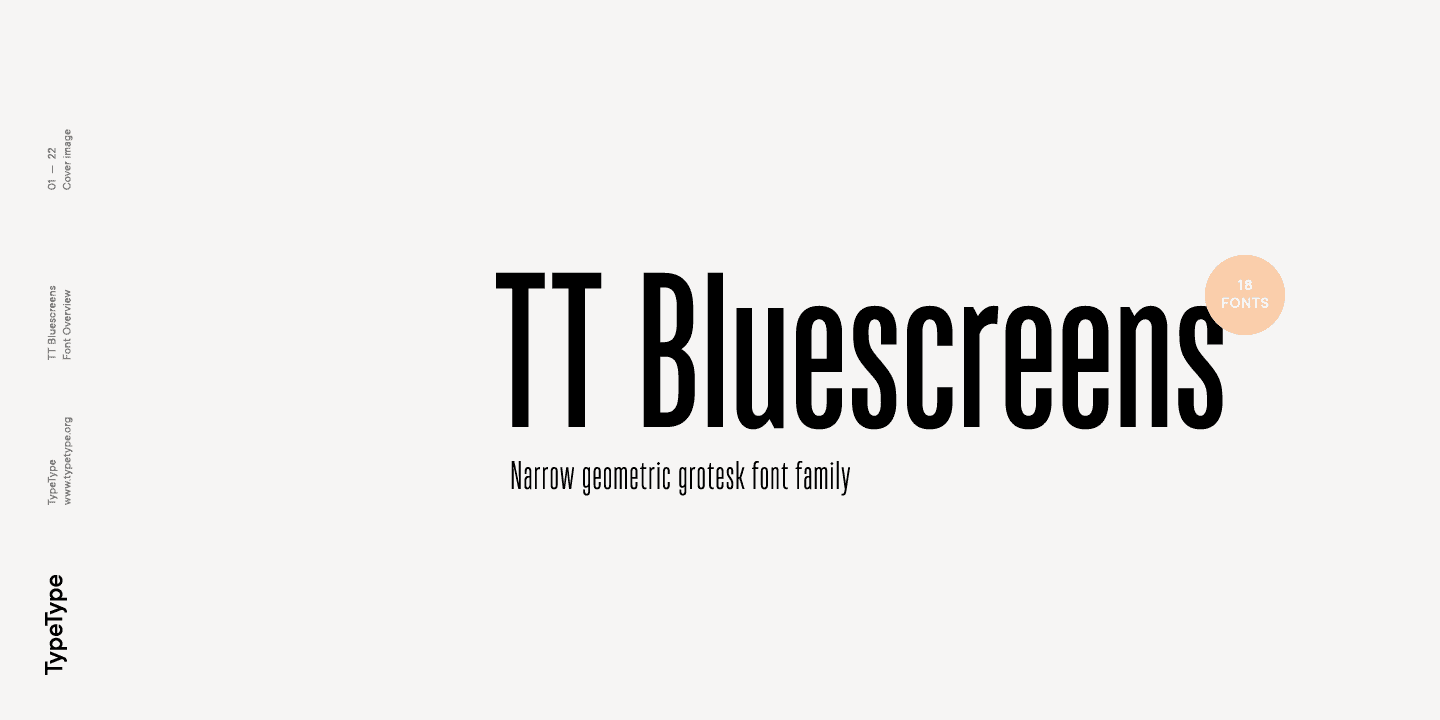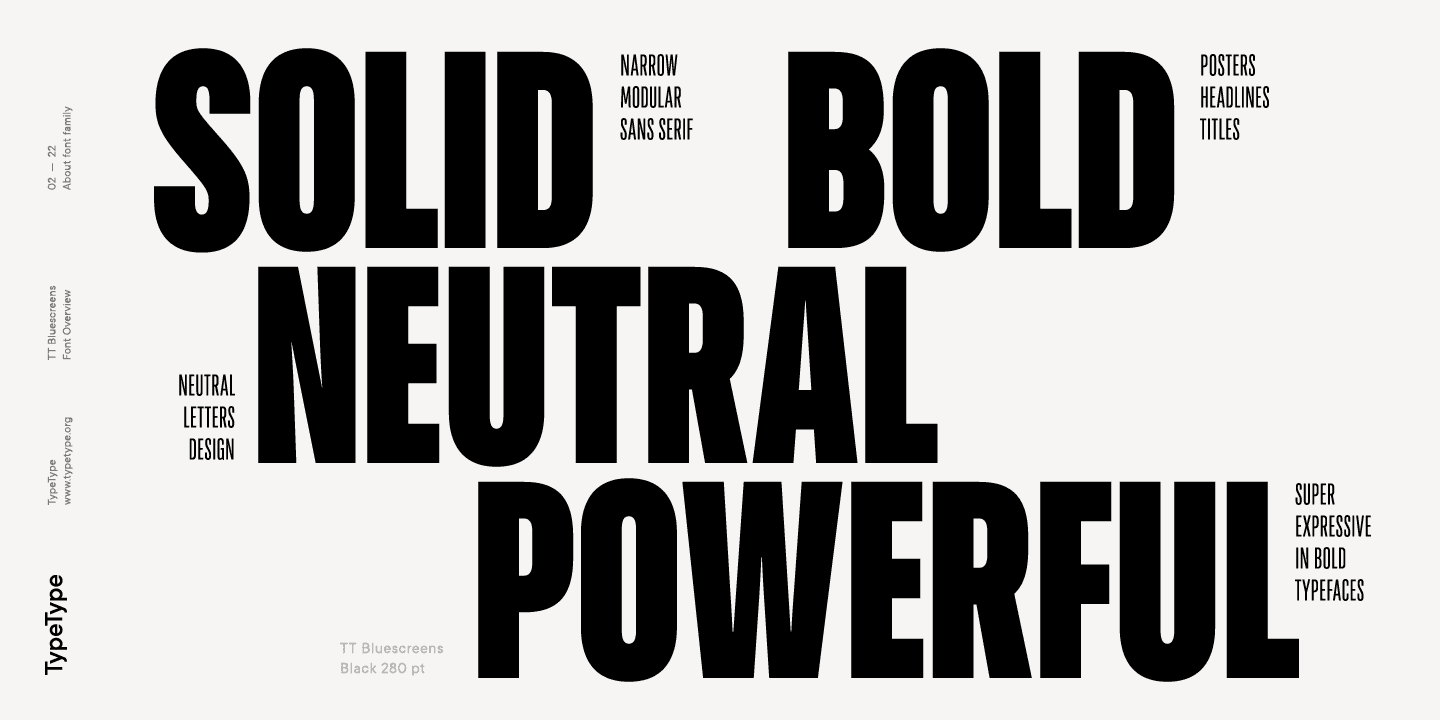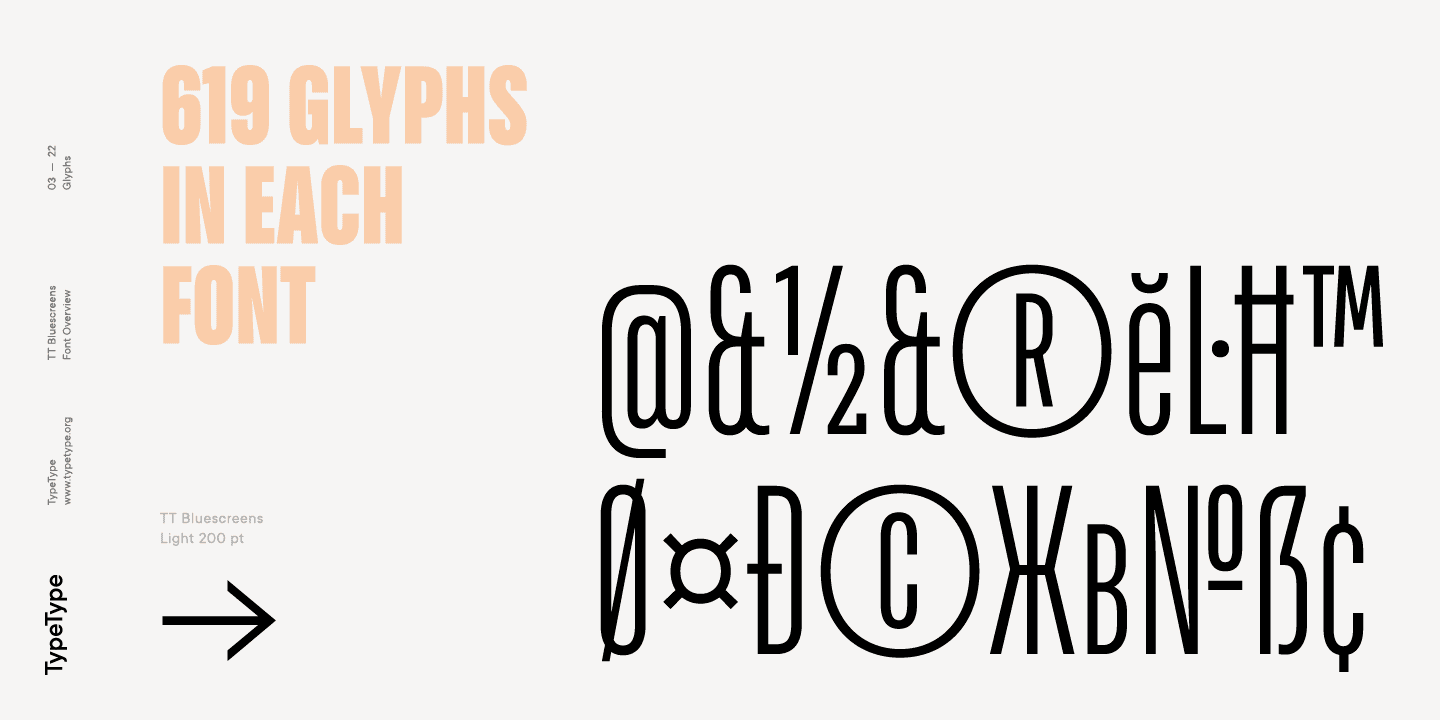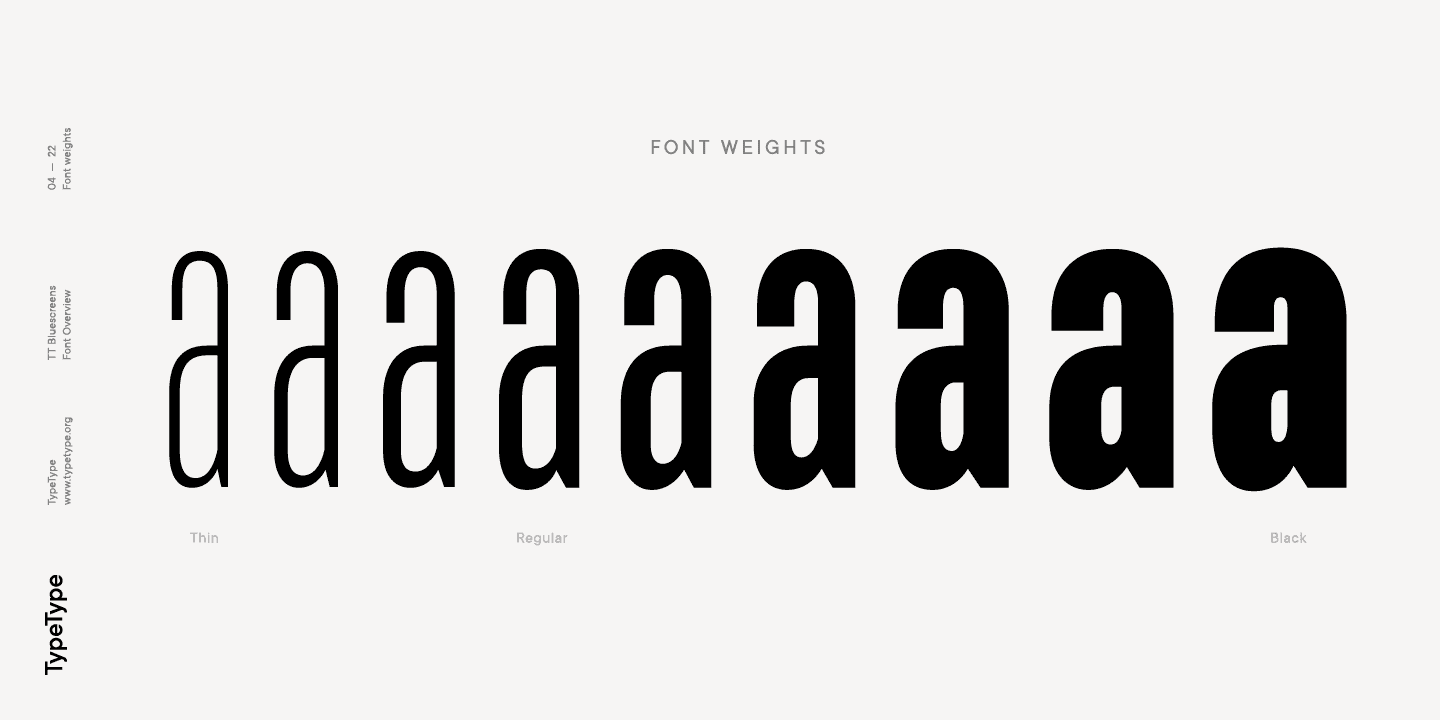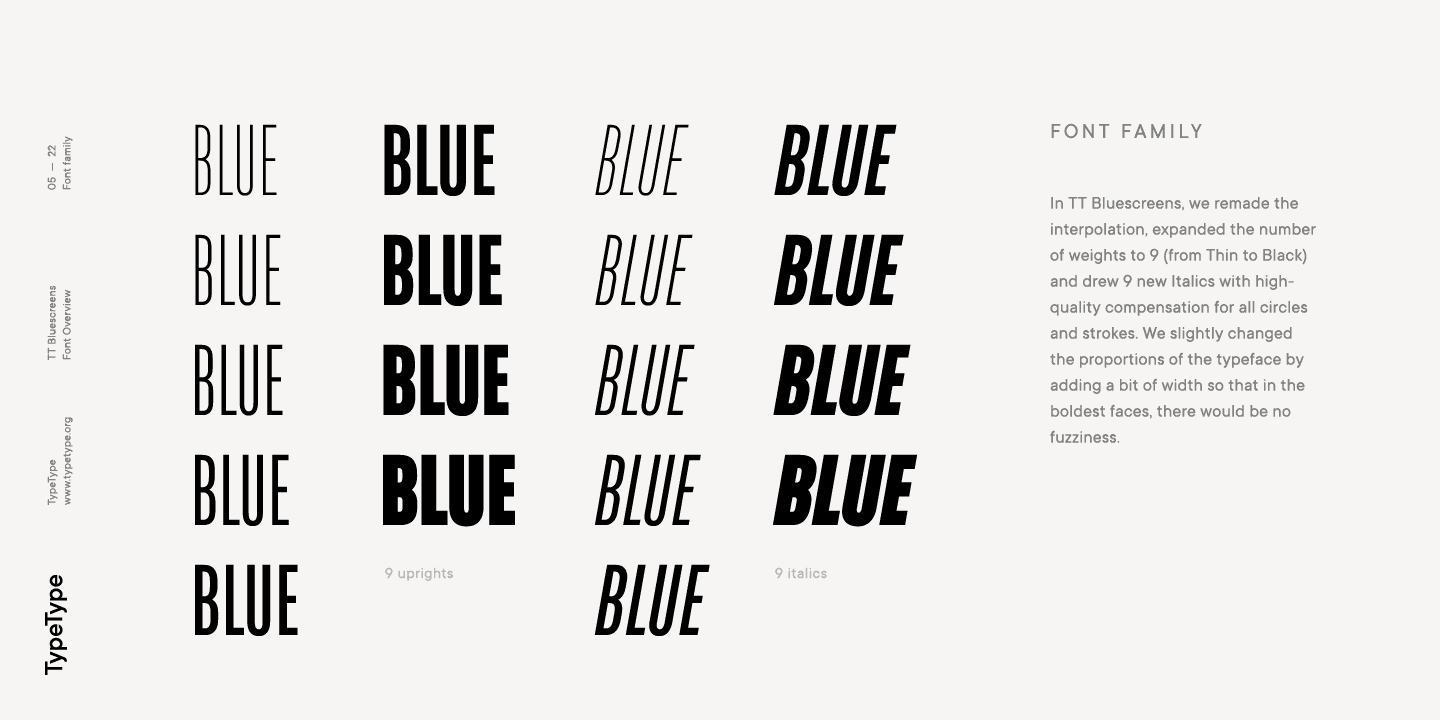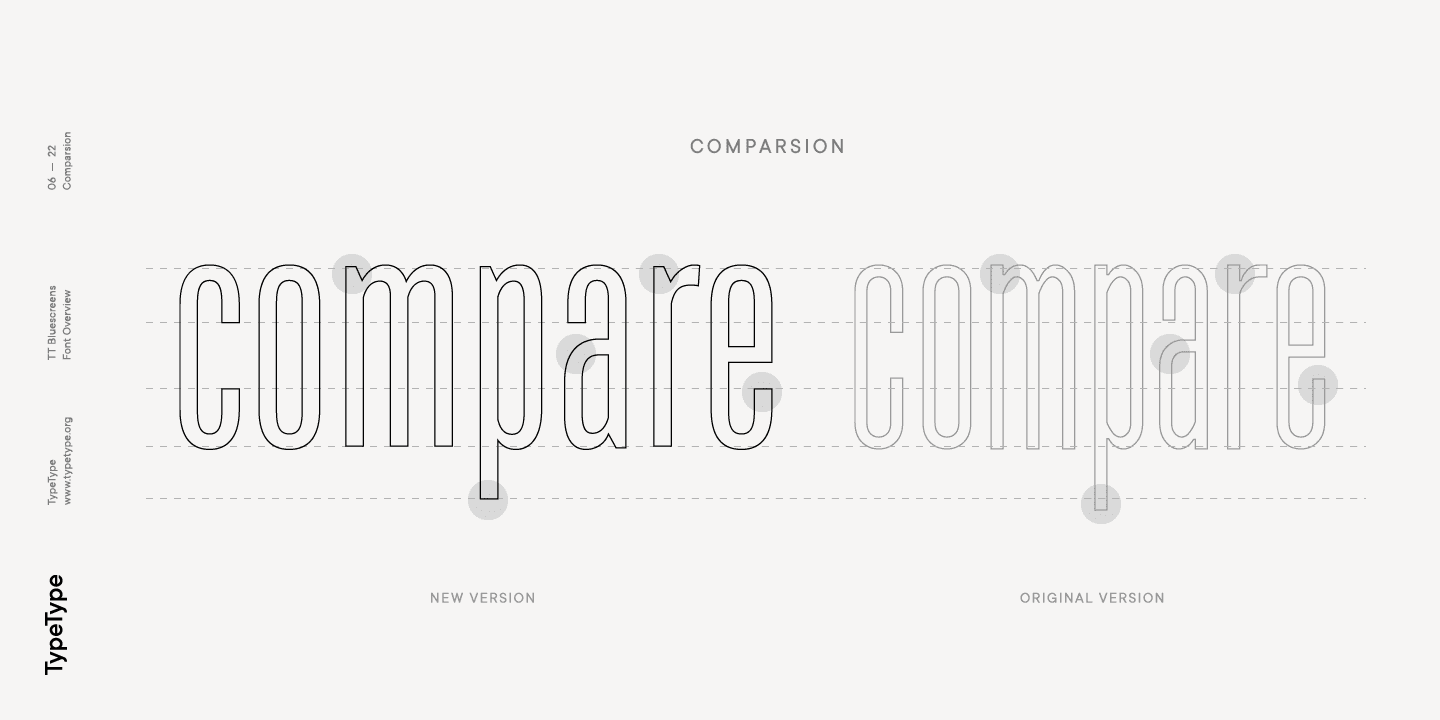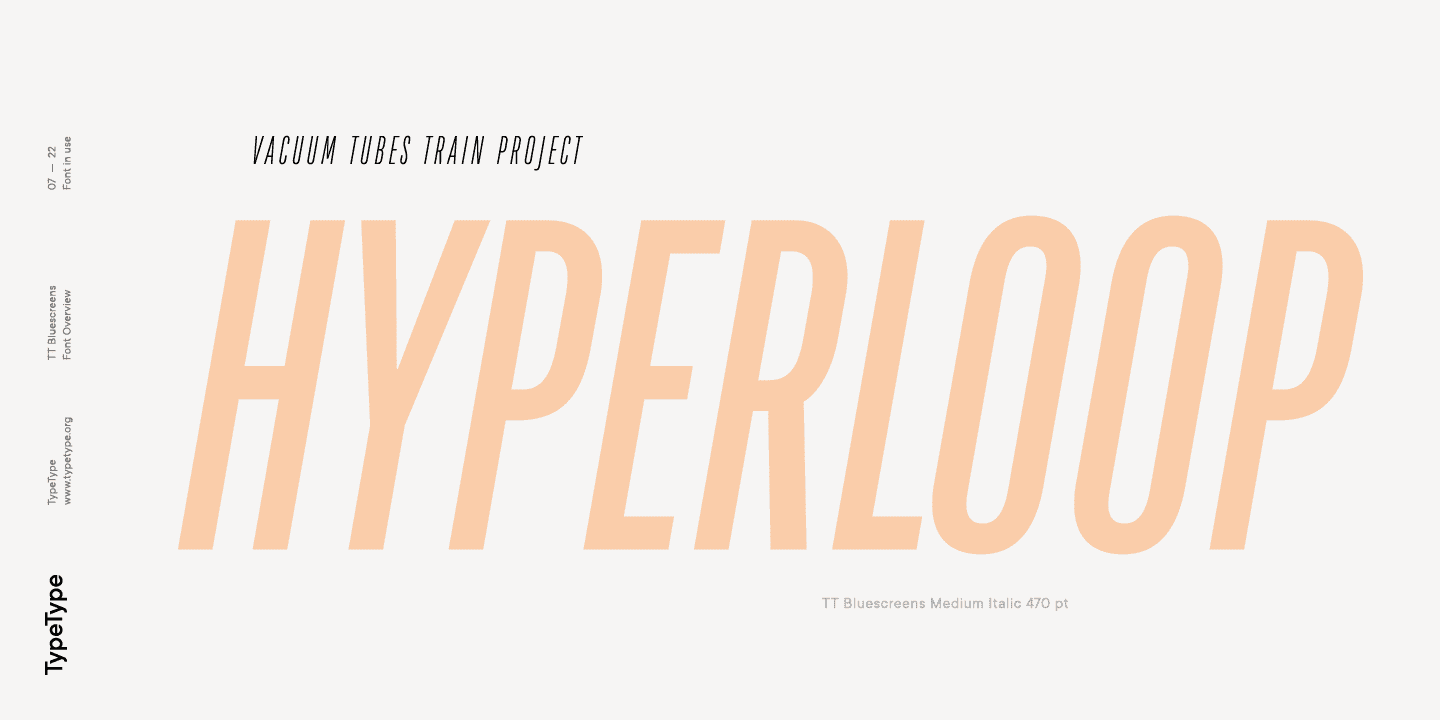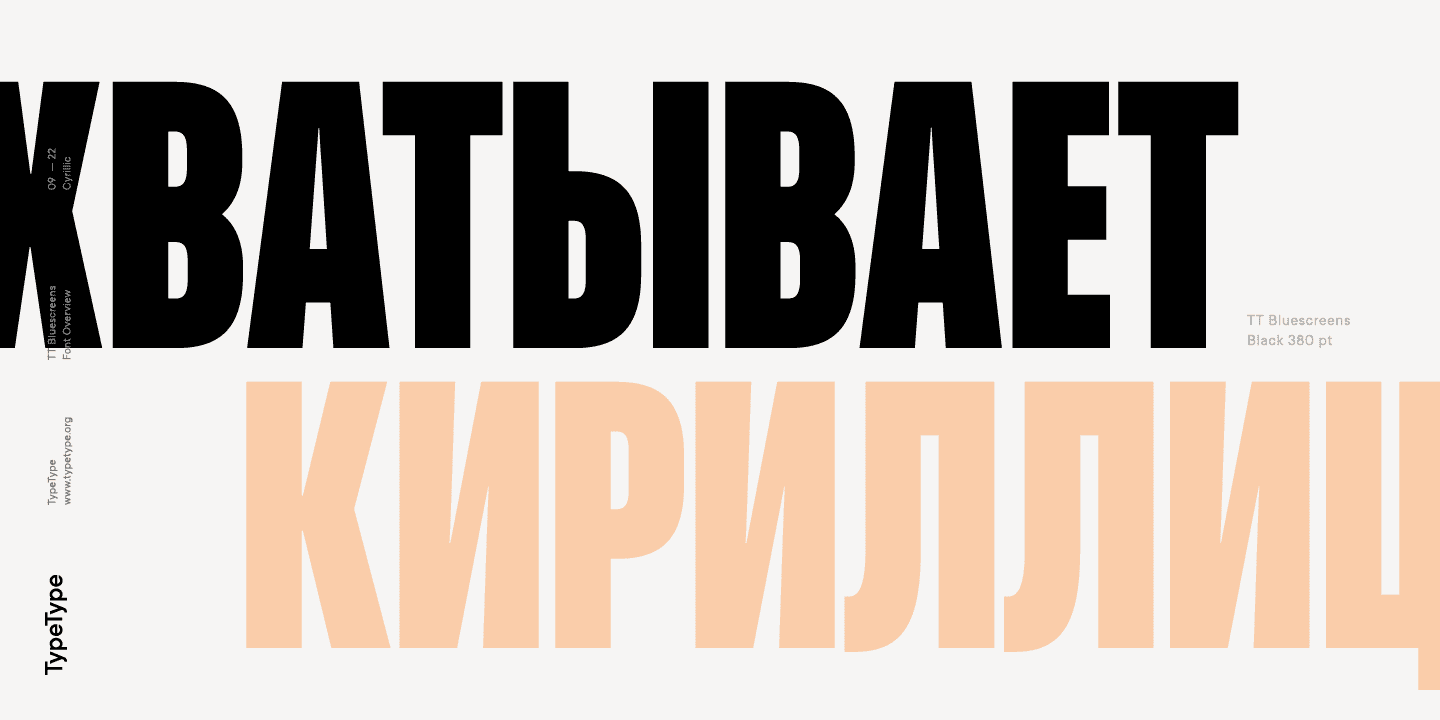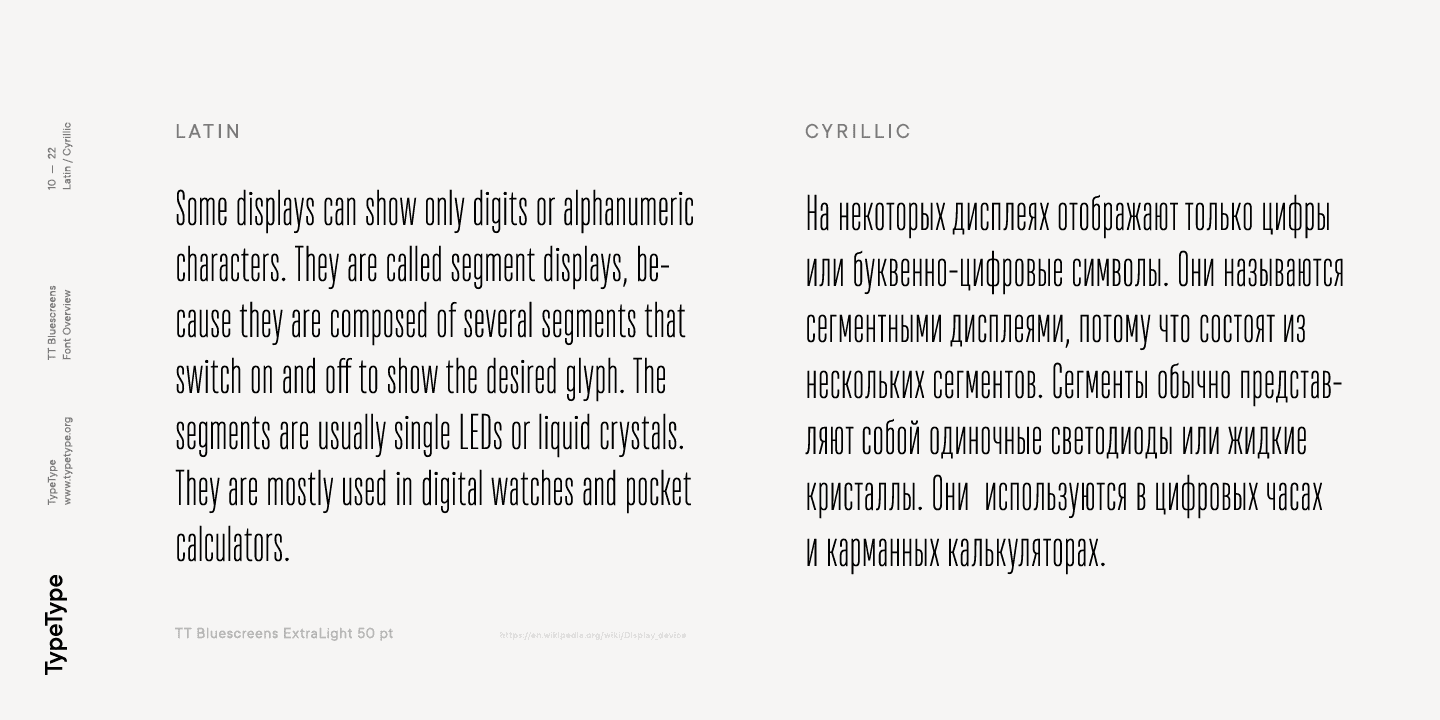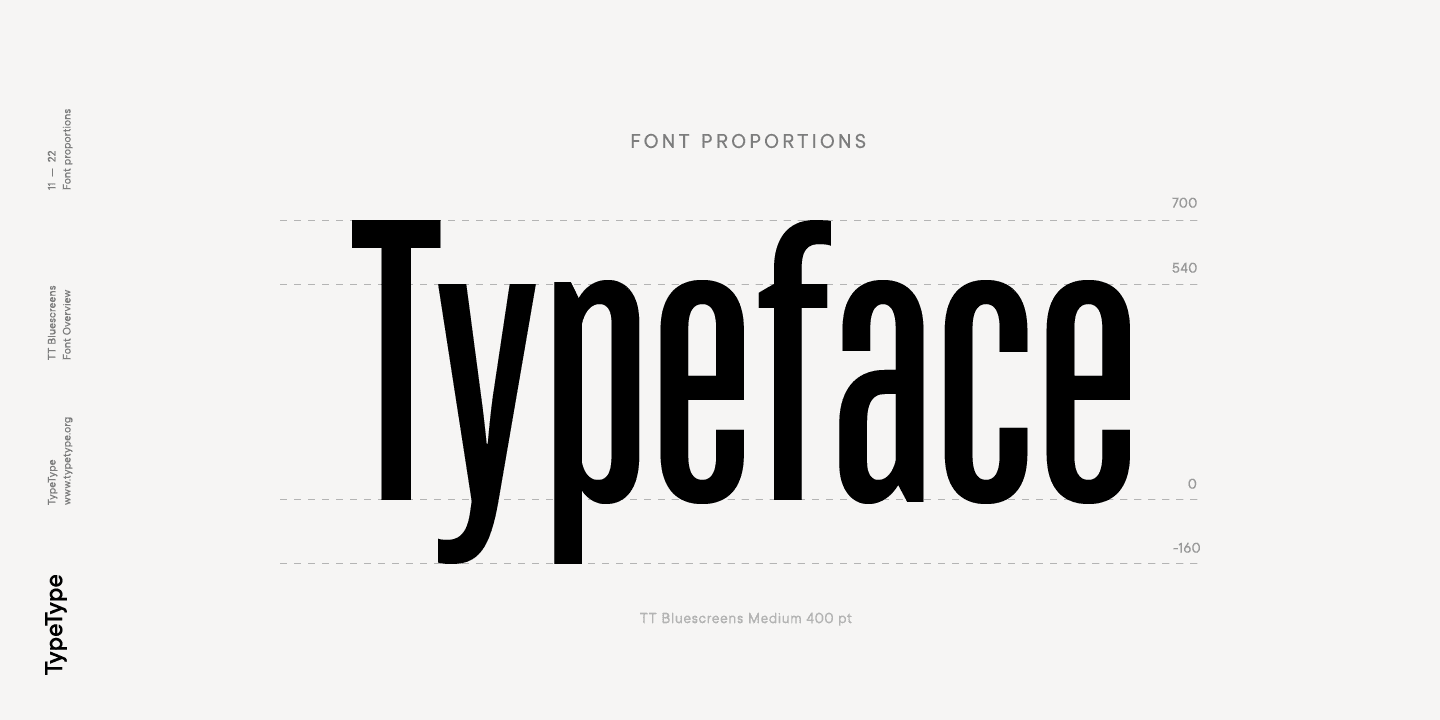
TT Bluescreens Family (18 fonts)
We did not deviate much from the modular system in which different elements were identical to each other, but at the same time we tried to improve the readability of some letters by adding a small contrast between the strokes. In parallel with this, we slightly changed the proportions of the typeface by adding a bit of width so that in the boldest faces there would be no fuzziness. We changed the stem thickness of the lightest faces — this way, light faces look much better than their counterparts from the old version of the typeface.
In addition, we remade the interpolation, expanded the number of weights to 9 and drew 9 new Italics with high-quality compensation for all circles and strokes. While the fonts from the old version could boast only 416 characters in each of the faces, in the updated version the character barge of the fonts was increased to 619 characters. To do this, we increased the coverage of languages based on the Latin alphabet, added ligatures and stylistic alternates, as well as many other useful features, such as: ordn, ccmp, frac, sups, numr, dnom, sinf onum, lnum, tnum, pnum, liga, case, salt, ss01, locl, calt. In addition, the typeface received completely new hinting, which greatly improved the quality of its display when working on the web.